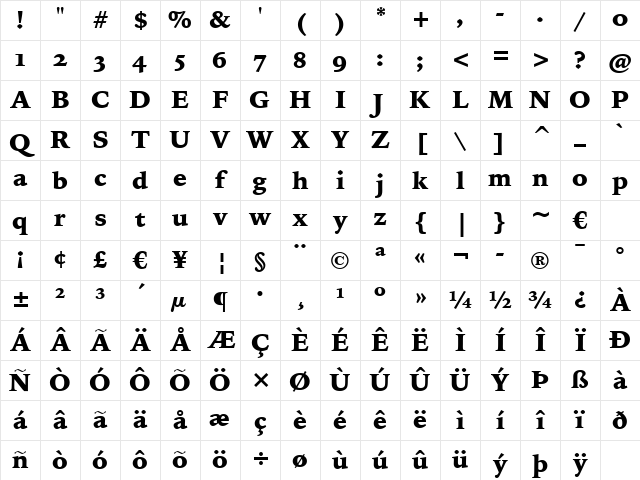
IowanOldSt Blk OSF BT Black
Complete IowanOldSt Blk OSF BT Black glyph index. Displaying only characters natively supported by IowanOldSt Blk OSF BT Black font.
Design Context for IowanOldSt Blk OSF BT
IowanOldSt Blk OSF BT is a composed and adaptable typeface that performs quietly and consistently across a wide range of design contexts.